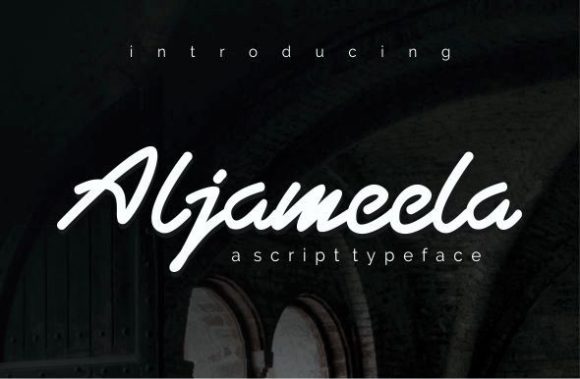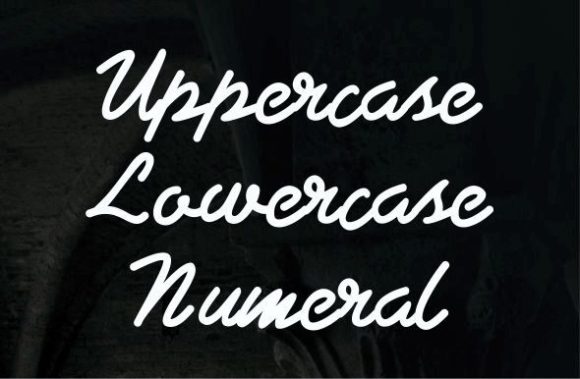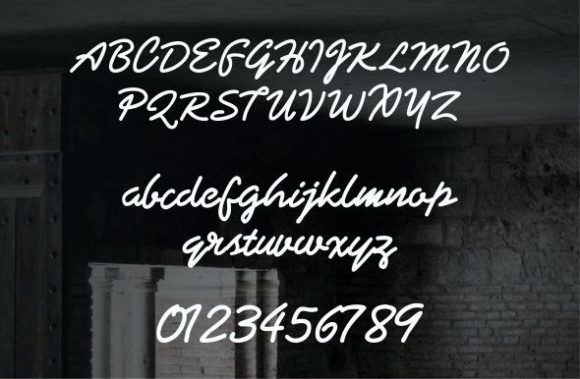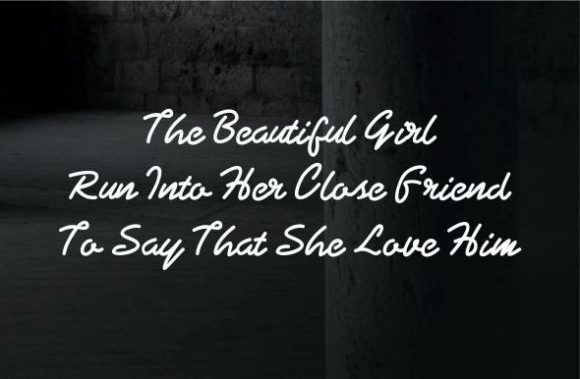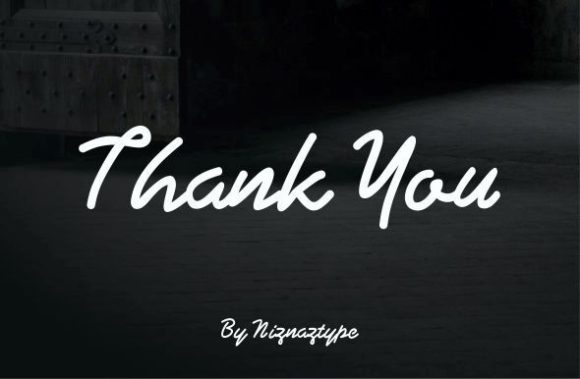
Script Fonts Aljameela Font 0 141 FacebookTwitterPinterestWhatsApp Aljameela Font Poster 2 Aljameela Font Poster 3 Aljameela Font Poster 4 Aljameela Font Poster 5 About Aljameela Font Aljameela simplifies elegance into one truly outstanding handwritten font. This font is the perfect fit for all of your logos, branding, social media, and crafty DIY projects. DOWNLOAD NOW